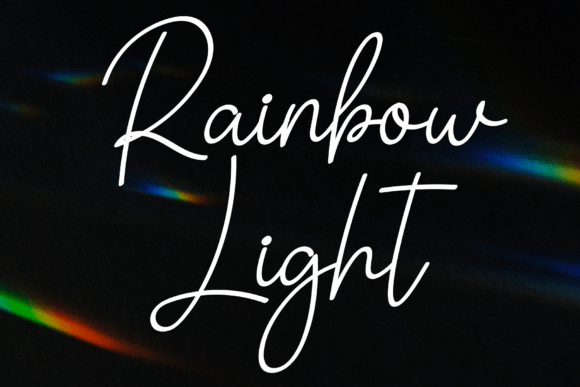
Get ready to be swept away by Rainbow Light Font, a captivating and whimsical handwritten font that radiates joy and playfulness. Crafted with meticulous care by andikastudio, this script font exudes a magical charm that will transform your creative projects into enchanting works of art.
With its vibrant, flowing lines, Rainbow Light Font dances across the page, creating an irresistible visual appeal. Its unique and eye-catching style makes it the perfect choice for quote designs, adding an extra layer of personality and charm to your words. Whether you're designing for social media, posters, or any other creative endeavor, Rainbow Light Font is guaranteed to make your designs shine.
But Rainbow Light Font is not just a pretty face. It's also incredibly versatile, lending its playful character to a wide range of design projects. From whimsical invitations and greeting cards to eye-catching logos and branding, Rainbow Light Font effortlessly adapts to any design aesthetic, bringing a touch of magic and delight wherever it goes.
Unleash your creativity and let Rainbow Light Font transport you to a world of wonder and enchantment. Its free-spirited nature invites you to experiment, mix and match, and create designs that are as unique and captivating as your imagination. With Rainbow Light Font, the possibilities are endless, and the only limit is your creativity.